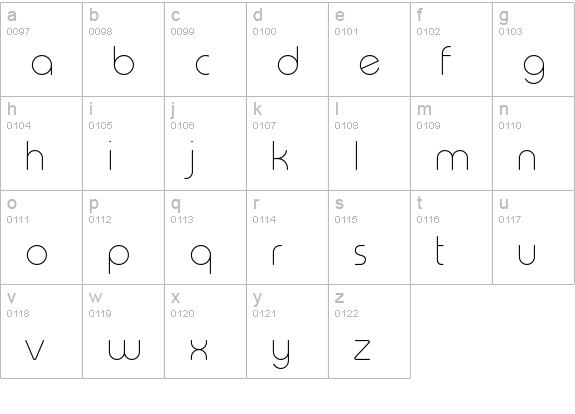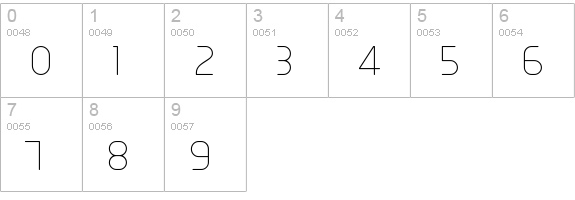
Typo Round Thin Demo is a delicate, low-contrast variant in the Typo typeface family \xE2\x80\x94 well suited to fashion editorial, minimal branding, and high-contrast display.
Typo Round Thin Demo font is a sleek and modern typeface that will add a touch of elegance to any design project. With its thin and rounded letterforms, this font exudes a sense of sophistication and refinement. Whether you're creating a logo, website, or print materials, Typo Round Thin Demo font will make a lasting impression. What sets this font apart is not only its stunning design, but also the fact that it is free to download. That's right, you can access this incredible font without spending a dime. Thanks to its availability on FontsMarket.com, you can easily download and start using Typo Round Thin Demo font in just a few clicks. Don't let the word "Demo" fool you – this font is fully functional and ready to enhance your creative projects. Its versatility allows it to be used in a variety of contexts, from headlines and titles to body text and captions. With its clean lines and elegant curves, Typo Round Thin Demo font is sure to elevate your designs to new heights. Whether you're a graphic designer, web developer, or simply a typography enthusiast, Typo Round Thin Demo font is a must-have in your collection. Its combination of style, legibility, and accessibility make it a valuable asset for any project. So why wait? Head over to FontsMarket.com and download Typo Round Thin Demo font today, and watch as your designs come to life with this stunning typeface.